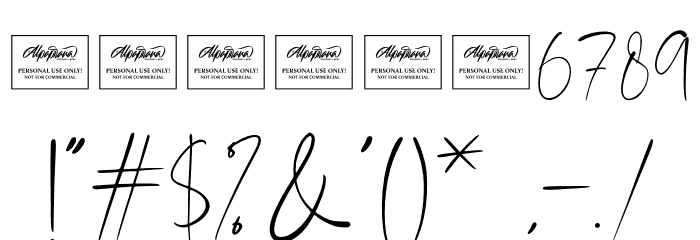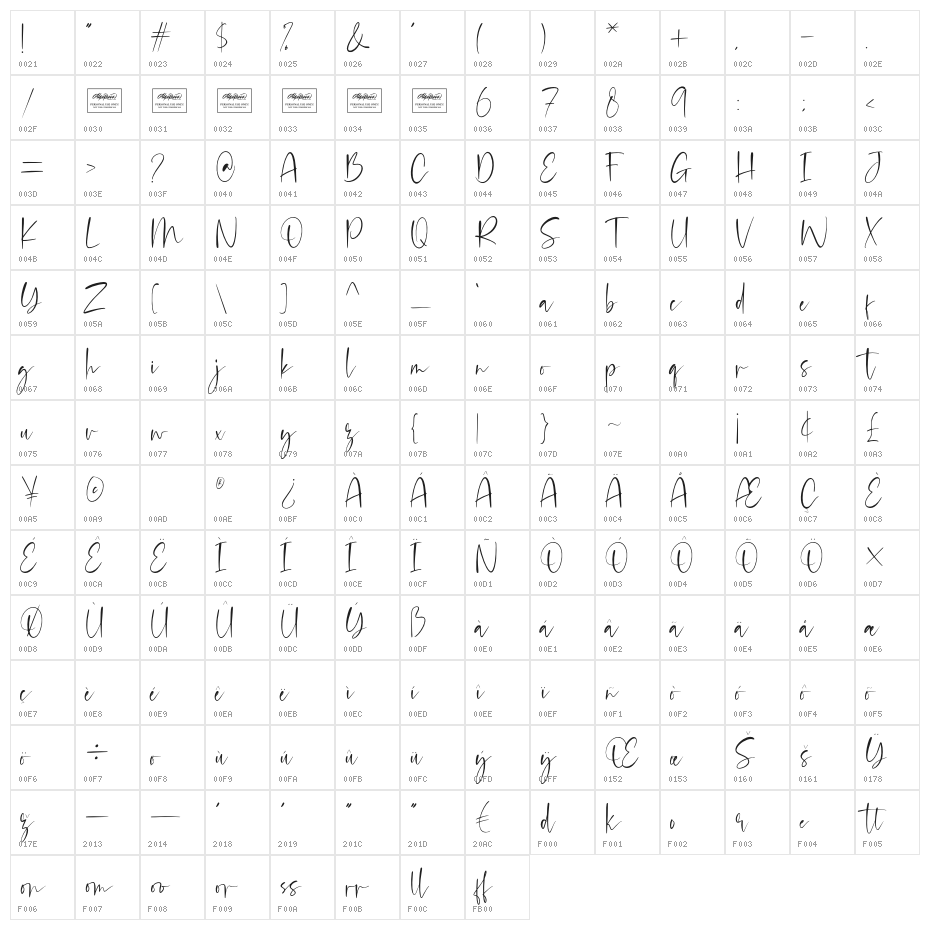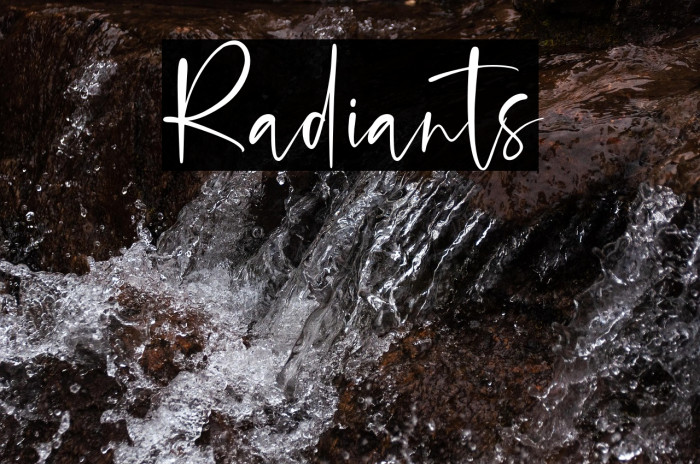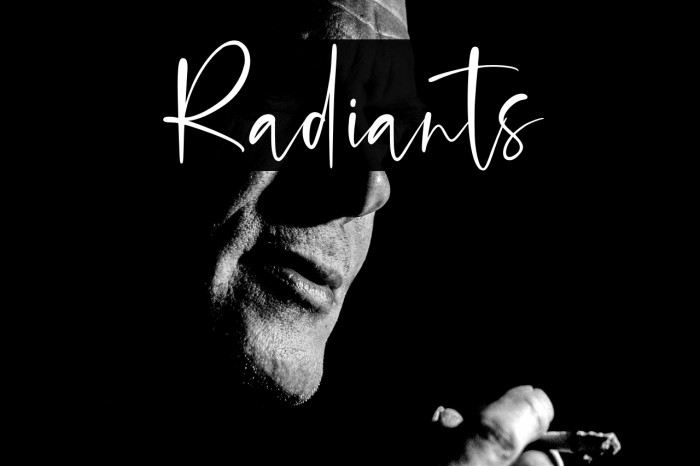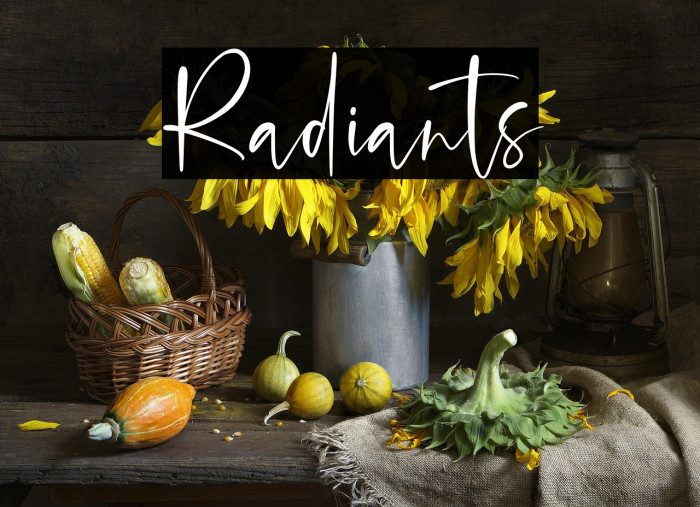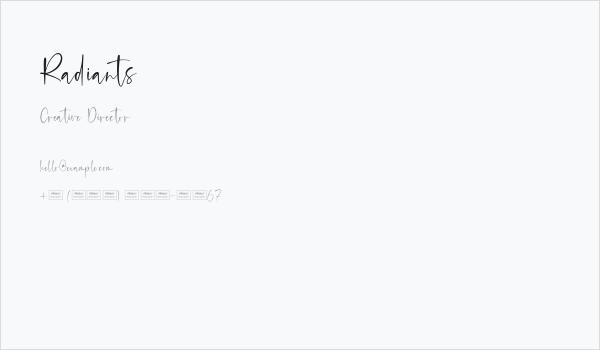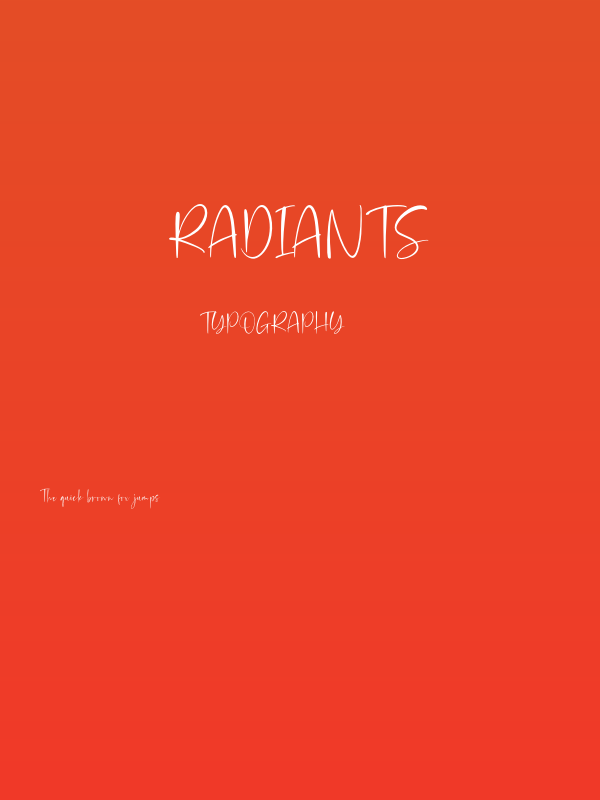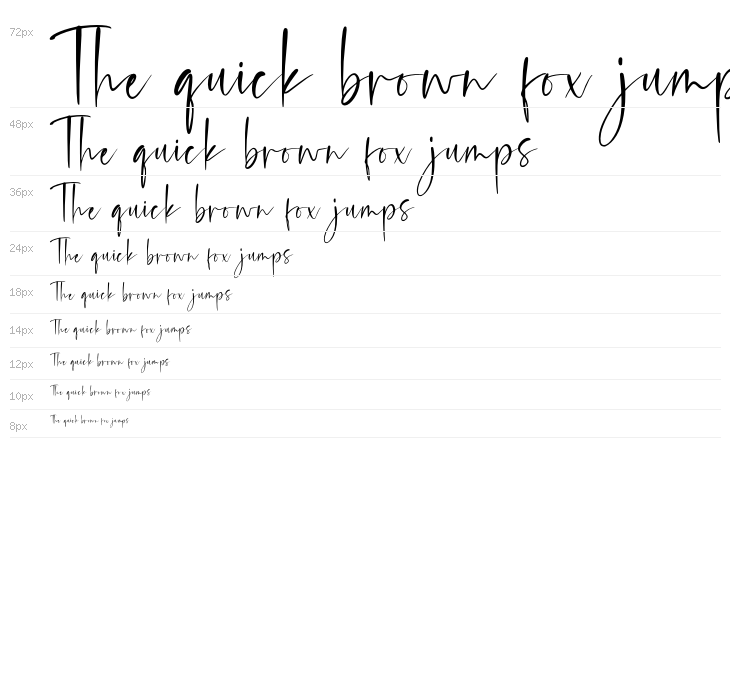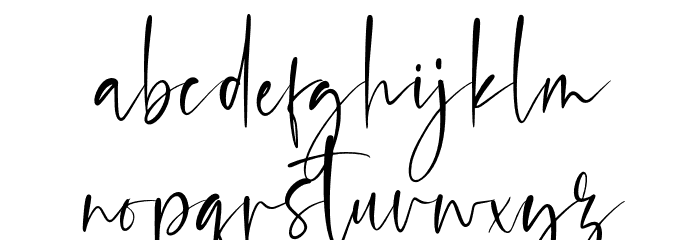
Radiants Font
Radiants Description
This font features an elegant and flowing handwritten style, characterized by its smooth, cursive strokes and a natural, organic feel. The uppercase letters are tall and slender, with a slight slant that adds a dynamic touch. The lowercase letters maintain a consistent flow, with some letters featuring loops and flourishes that enhance its decorative appeal. The numbers and special characters are crafted with the same attention to detail, ensuring a cohesive look across all glyphs. This font exudes a sense of sophistication and creativity, making it ideal for projects that require a personal and artistic touch.